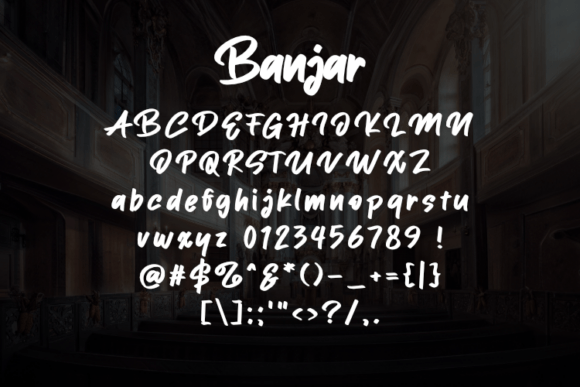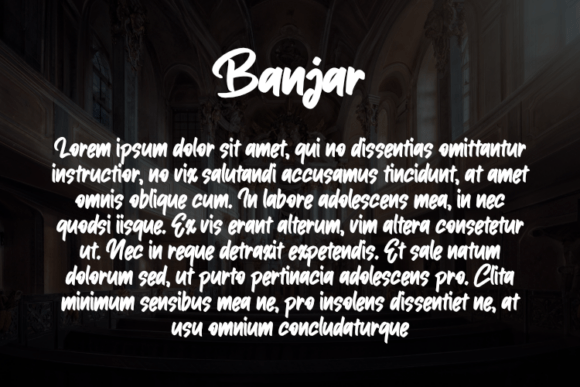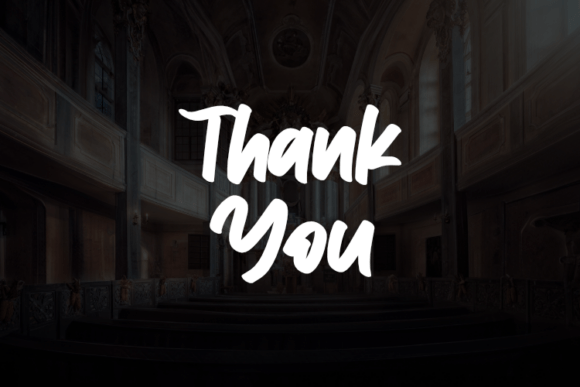
Introducing Banjar Font: Elevate Your Designs with Versatility and Style
In the world of design, the right font can make all the difference. It’s not just about conveying a message; it’s about doing so with style, flair, and an unmistakable uniqueness that sets your work apart. For designers, crafters, and anyone looking to breathe life into their creative projects, the Banjar Font emerges as a game-changer. This adaptable font is specifically crafted to complement your creative design, whether it’s for clothing, t-shirts, or a myriad of other products.
The Versatility of Banjar Font
Banjar Font stands out due to its incredible versatility. It’s not confined to a single platform or software; instead, it seamlessly integrates across all mediums, ensuring your designs look impeccable everywhere. Whether you’re working on a digital project or a physical product, Banjar’s adaptability shines through, providing a consistent and high-quality appearance that captures the essence of your creativity.
Designed for the Creative Community
Bringing Richness and Vibrancy to Your Designs
The primary goal of any design is to stand out. In a sea of generic and often bland designs, Banjar Font offers a breath of fresh air. Its unique style and simplicity work in harmony to highlight the richness and vibrancy of your ideas. By choosing Banjar, you’re not just selecting a font; you’re elevating your design’s aesthetic appeal and ensuring it captures the attention it deserves.
The Power of Simplicity and Uniqueness
Banjar’s design philosophy revolves around the power of simplicity and uniqueness. In an era where complexity often overshadows elegance, Banjar strikes a perfect balance. Its clean lines, effortless readability, and distinctive style ensure that your designs exude an authentic aesthetic. This font is not just about visual appeal; it’s about creating an emotional connection with your audience through thoughtful design.
Applications of Banjar Font
The applications of Banjar Font are vast and varied. Here are a few ways you can leverage this versatile font:
• Clothing and Apparel: Create stunning t-shirt designs, hoodies, and more that pop with personality.
• Digital Media: Enhance your social media posts, blog headers, and website content with a touch of elegance.
• Branding and Marketing: Develop a unique brand identity that speaks to your audience with a distinctive typography.
• Crafting and DIY Projects: Add a professional touch to your handmade products, from stationery to home decor.
Banjar Font is more than just a typeface; it’s a tool that unlocks a new level of creativity and professionalism in your designs. Its versatility, simplicity, and uniqueness make it an indispensable asset for designers and crafters alike. Whether you’re looking to elevate your brand, create stunning apparel, or simply add a touch of elegance to your digital content, Banjar is the perfect companion. Step up your design game with Banjar Font and discover a world where your creativity knows no bounds.